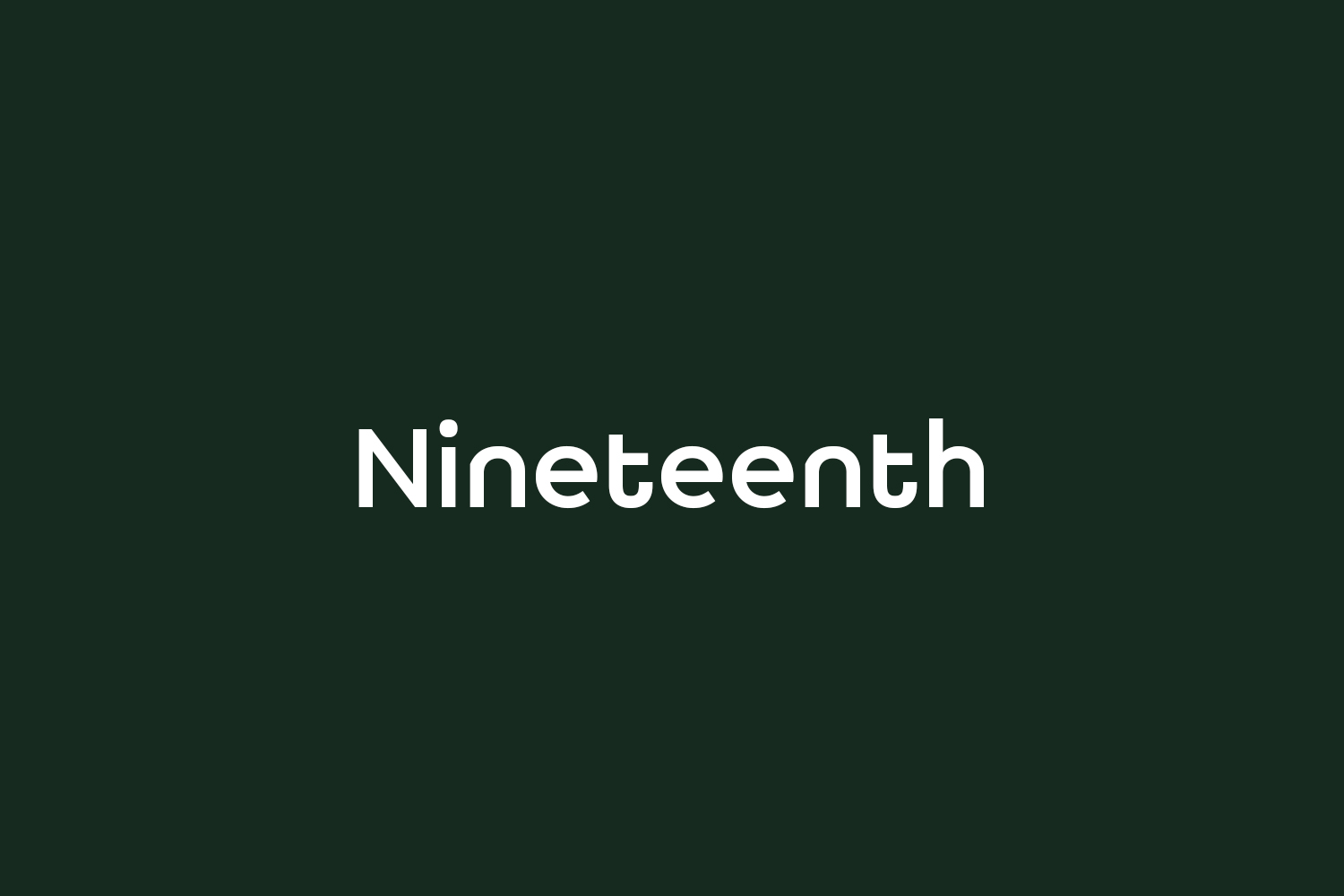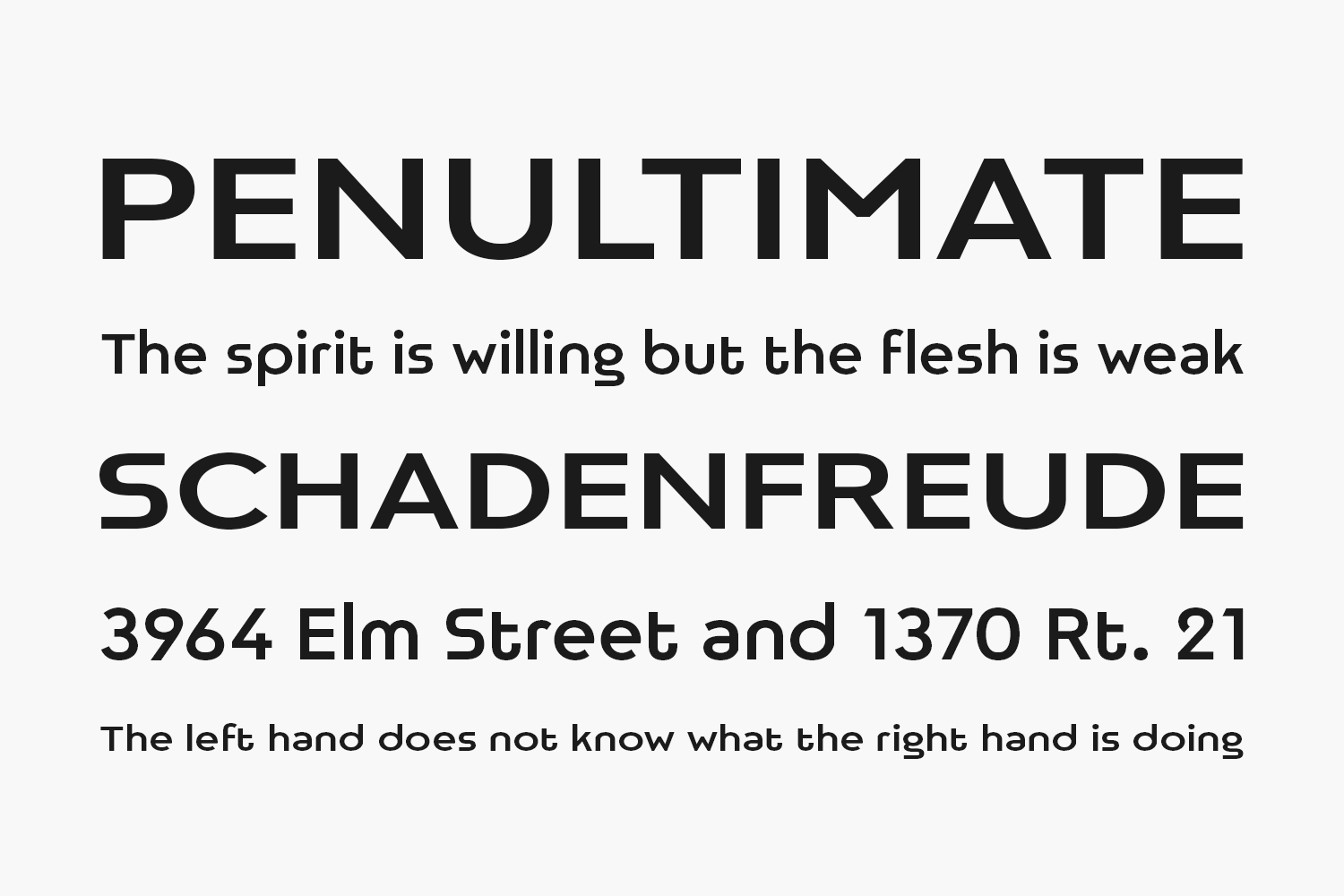
Nineteenth Free Font is a font inspired by the classic sans-serif fonts of the Bauhaus school. Supports extended Latin. Nineteenth Free Font is free for personal use only. Write to the author if you have any questions.
Designed by Igor Kosinsky